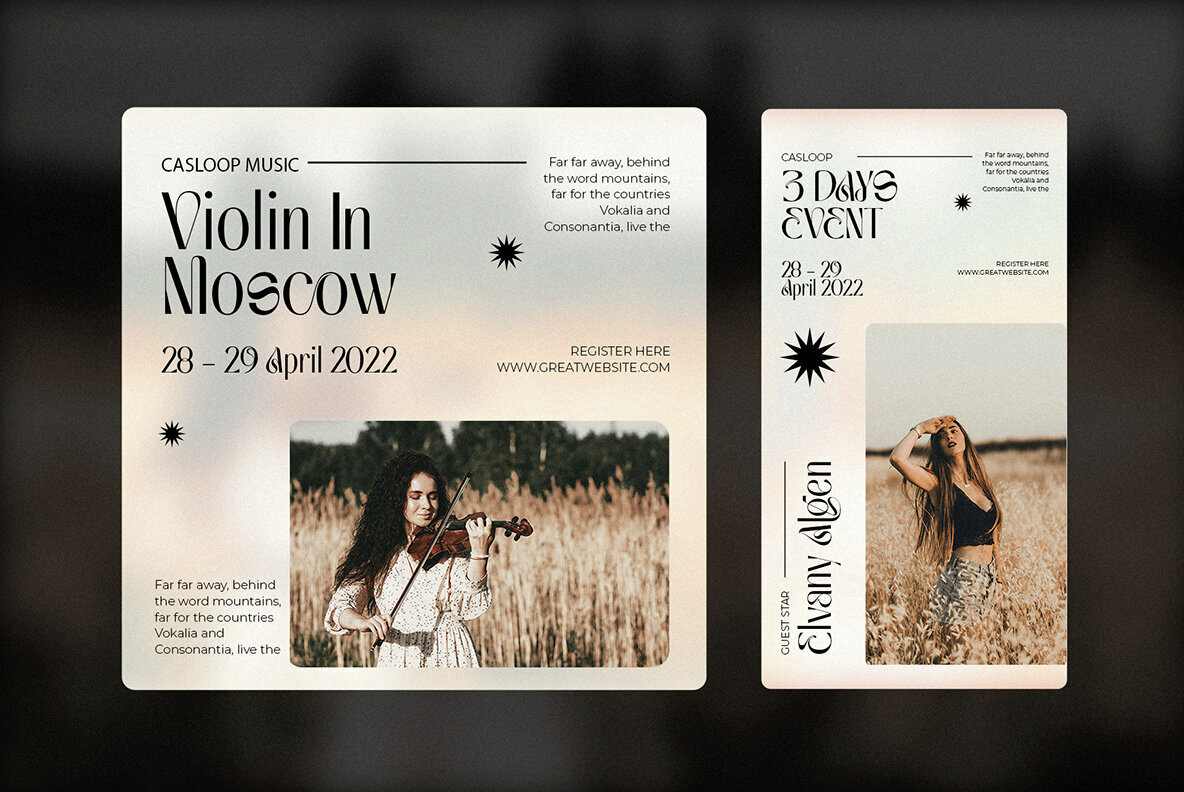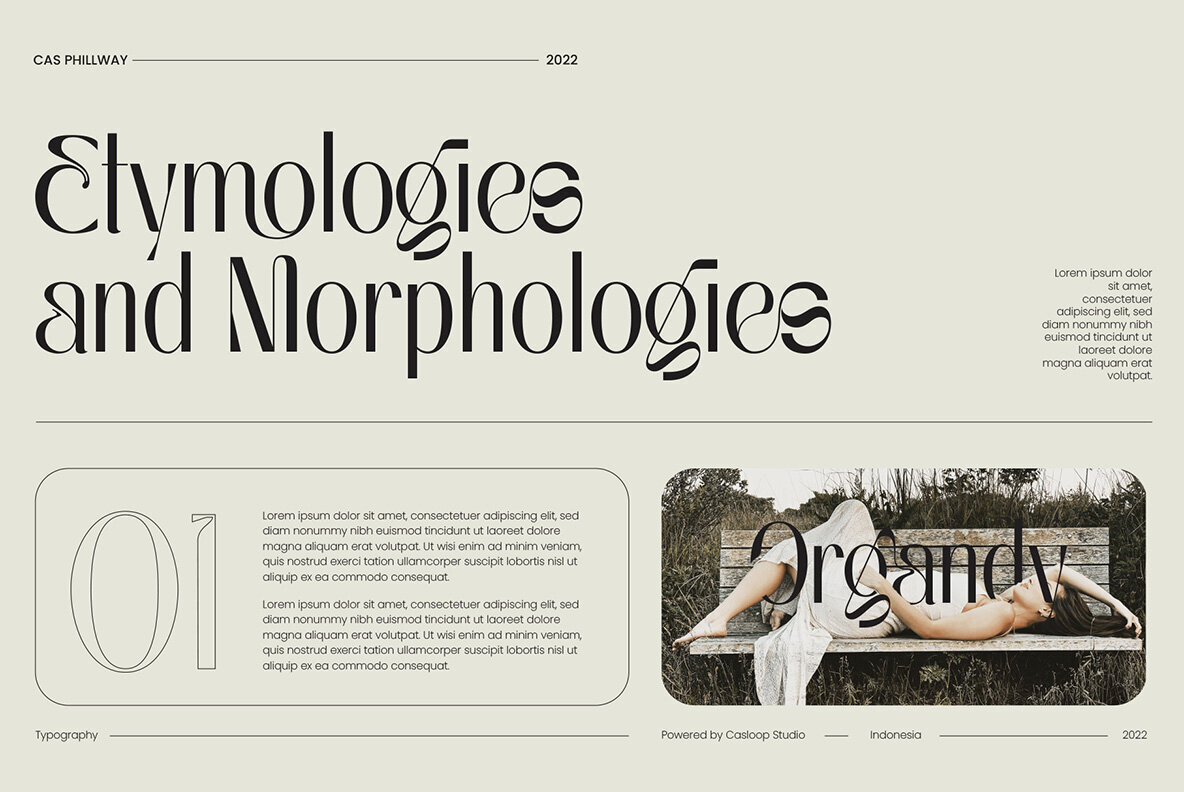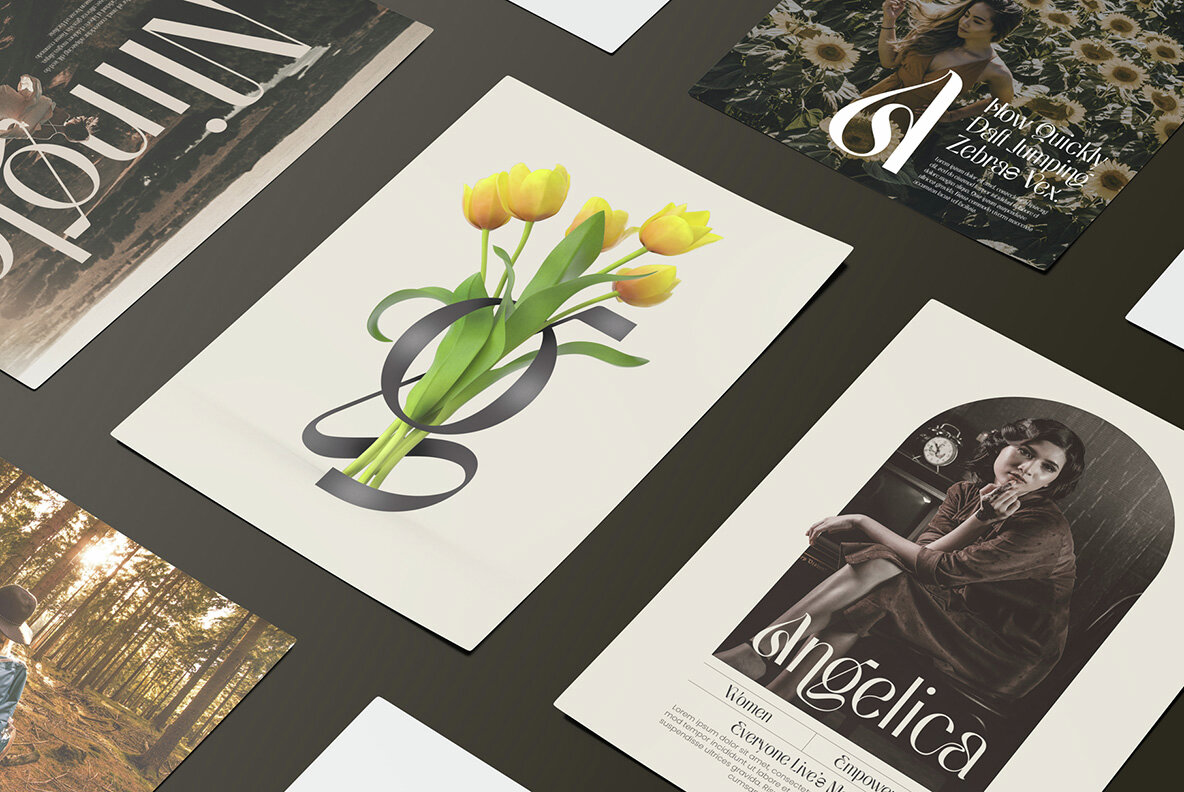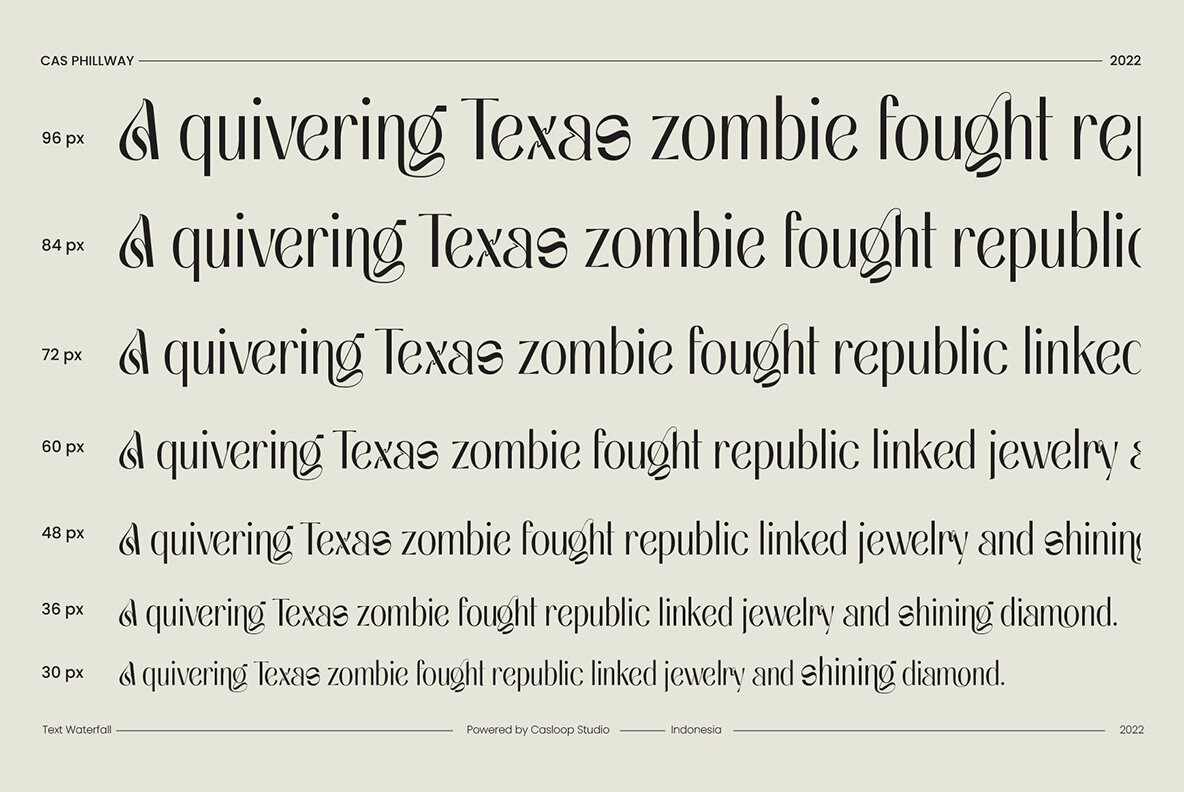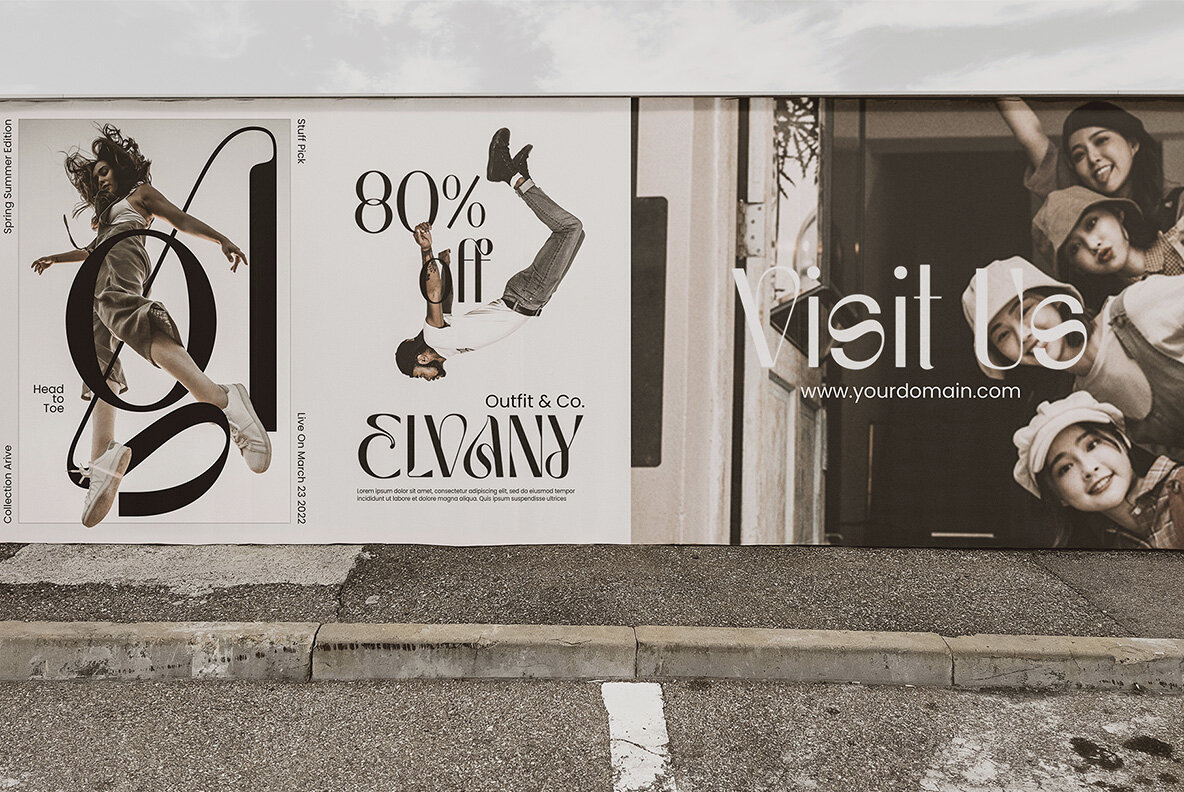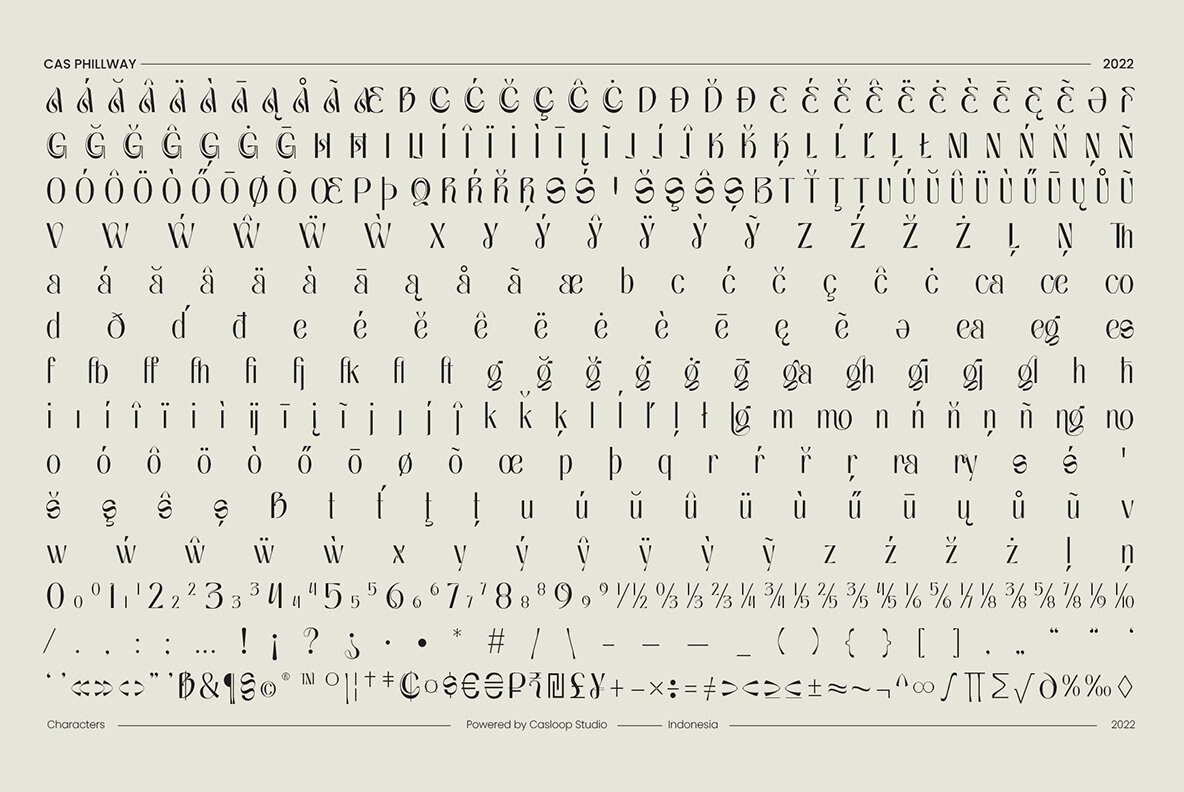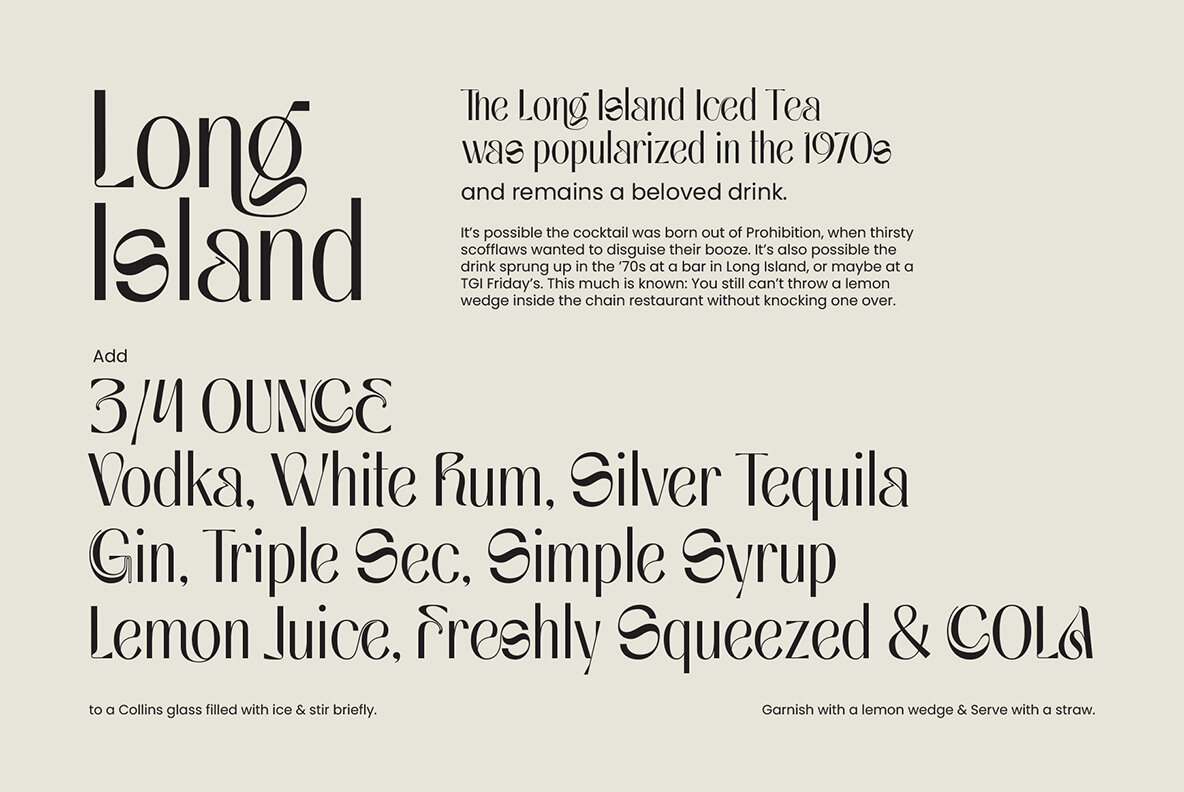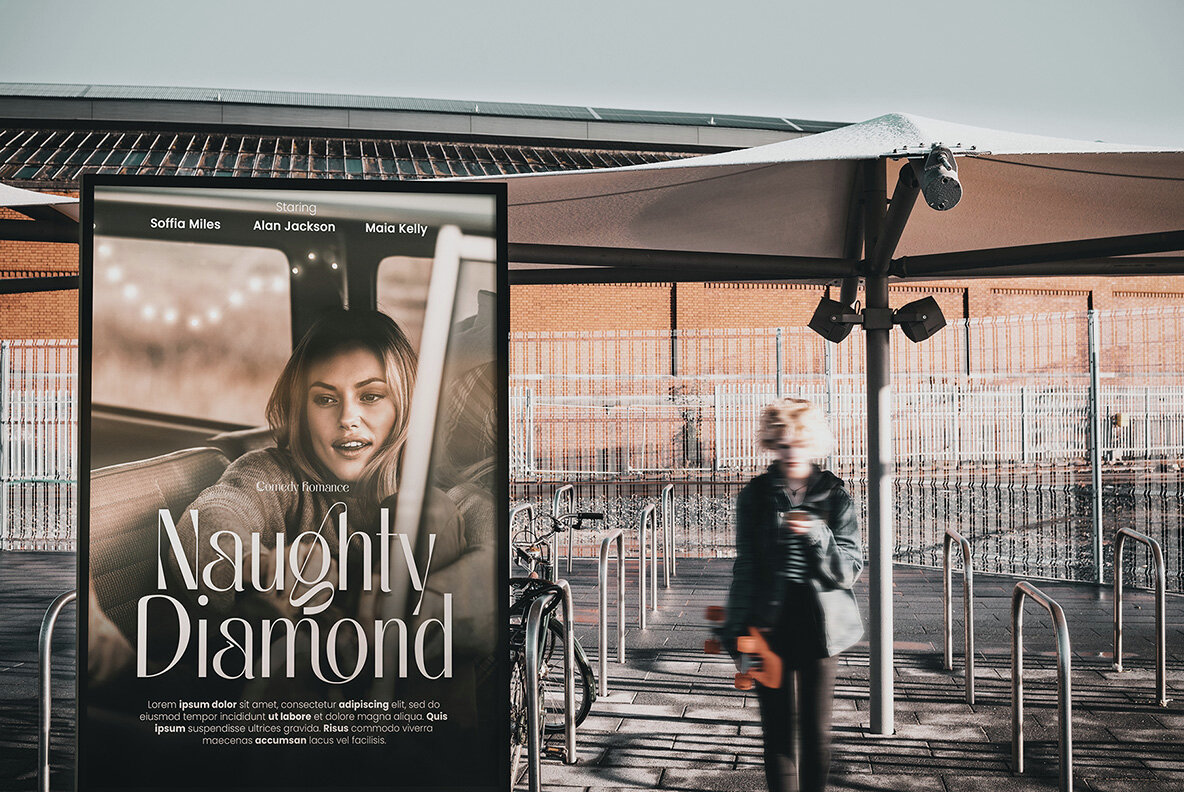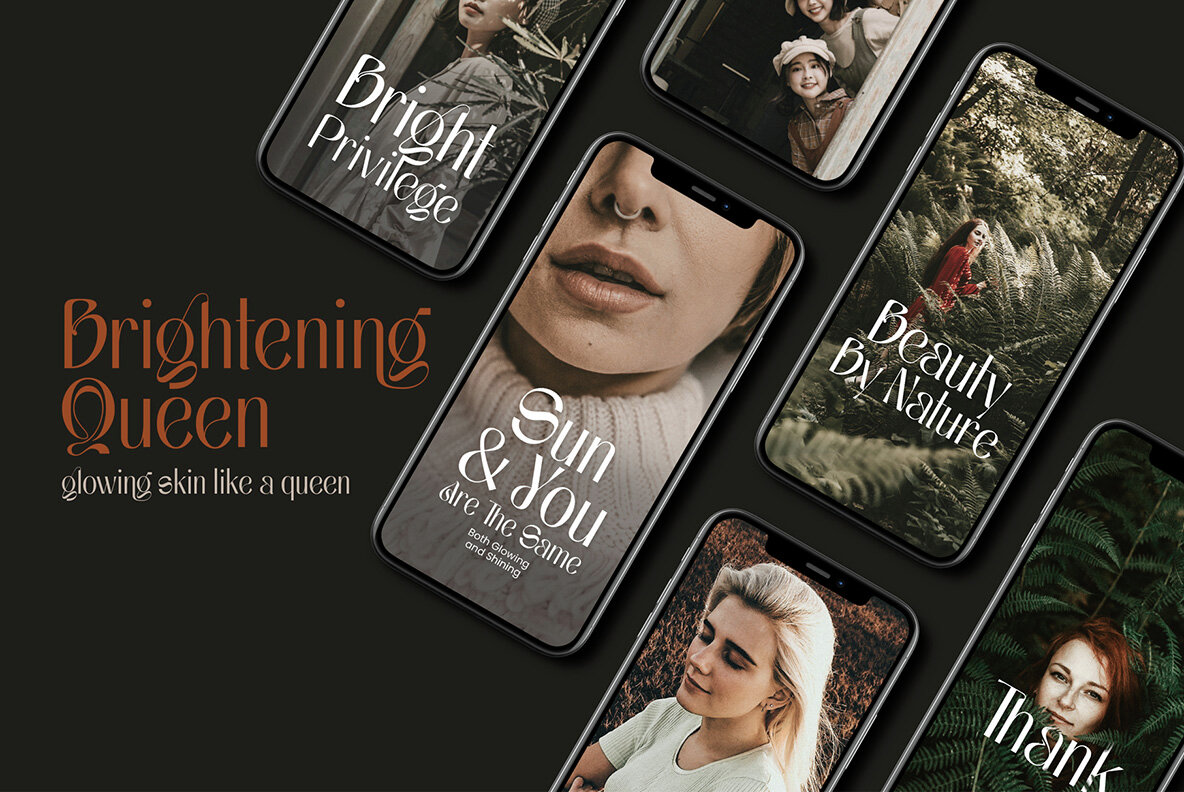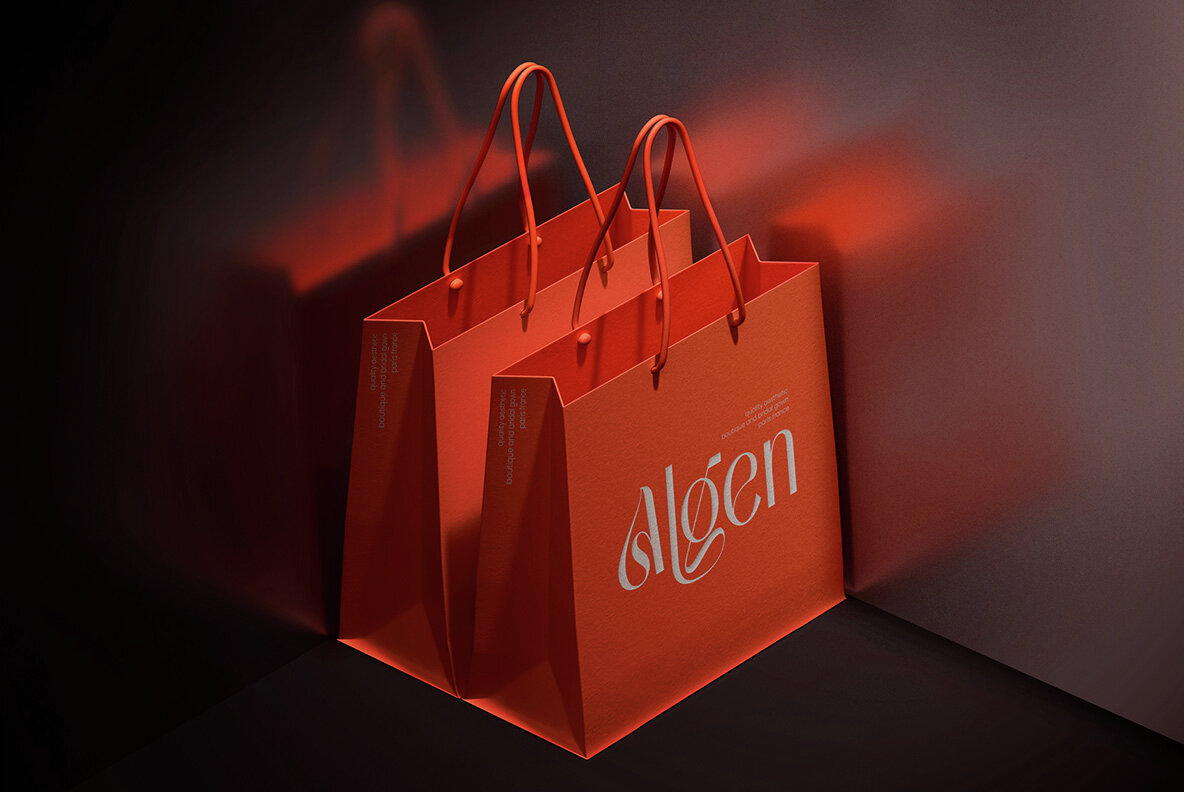
Cas Phillway Font
Cas Phillway redefines typography with its unique blend of sans-serif and experimental display styles. This font introduces a contemporary aesthetic marked by soft curves that add a delicate and graceful touch to any design project. With its fresh and innovative approach, Cas Phillway stands out by combining soft curves with an eccentric flair. Its style redefines beauty in typography, making it an ideal choice for a variety of applications, including website development, packaging, logos, and branding. Cas Phillway captivates with its exceptional qualities, balancing stylish elements with perfect legibility. Its gorgeous aesthetics elevate projects, providing a sophisticated and memorable impression. More than just a font, Cas Phillway is an experience filled with graceful charm and decorative details. Its unique style guarantees both satisfaction and seamless integration into various design contexts. The font's simplicity ensures ease of use, making it a versatile choice for a wide range of creative endeavors.Cas Phillway: Bold Elegance in Sans-Serif Design